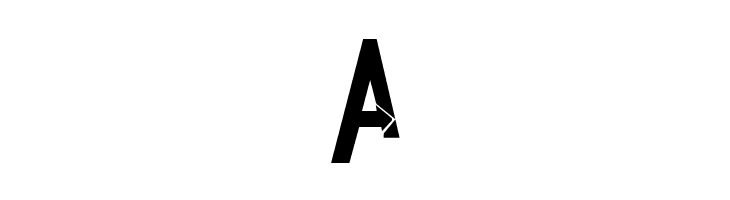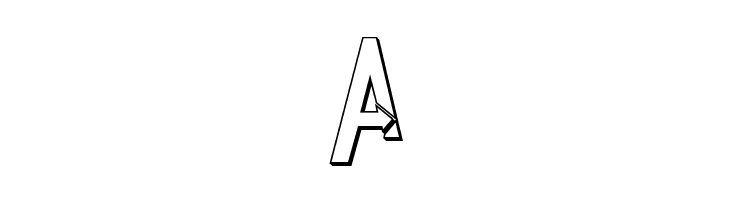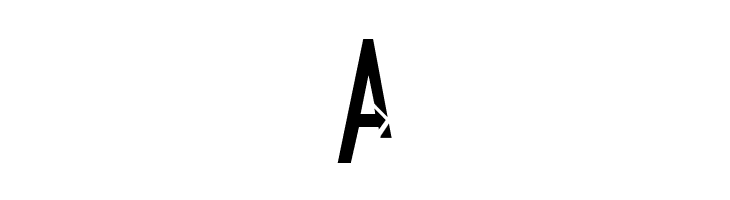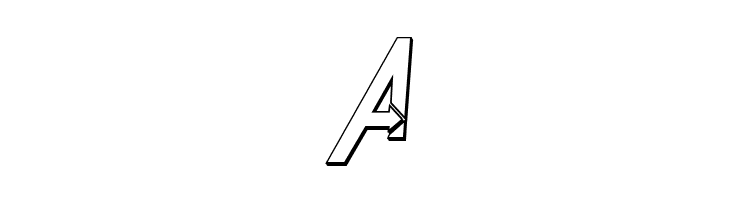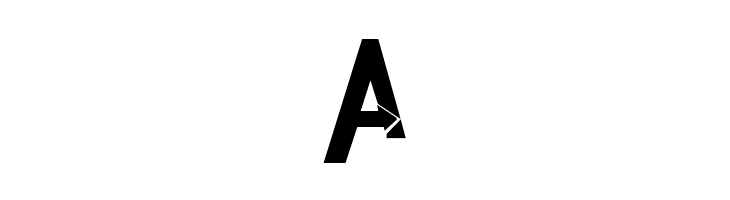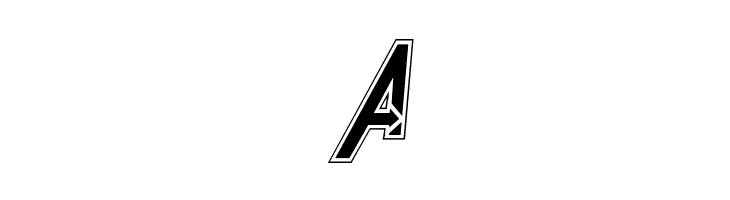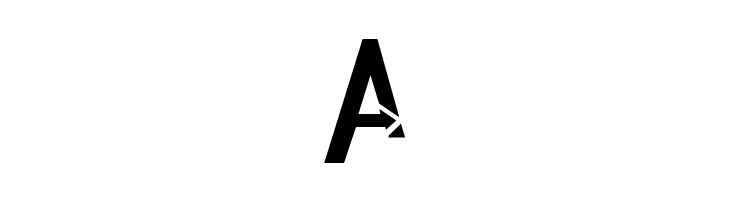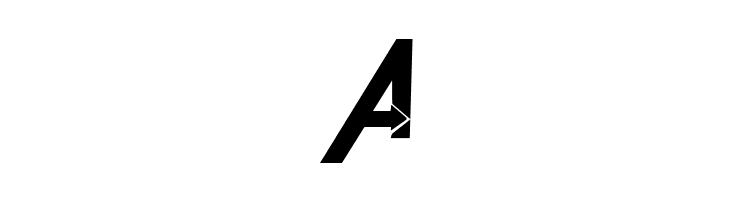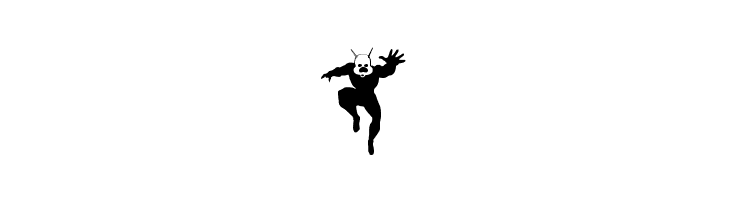
A mystical, rune-like font with bold, intricate characters and an italic slant.
A bold, geometric font with strong, angular shapes.
A bold, 3D geometric font with a strong, industrial style.
A bold, 3D italic font with a futuristic and dynamic style.
A bold, geometric, and condensed font ideal for impactful headlines.
A bold, condensed, and italicized font with a dynamic and modern style.
A bold, geometric font with angular lines and a strong, modern presence.
A bold, expanded, and italicized font with a geometric and futuristic style.
A bold, modern font with a unique horizontal line gradient effect.
A bold, italicized font with a gradient effect and dynamic, energetic style.
A bold, geometric font with a halftone effect, perfect for modern designs.
A bold, italicized font with a halftone effect, ideal for modern, dynamic designs.
A bold, italic, geometric font with a dynamic and energetic style.
A bold, angular font with a leftward slant, ideal for impactful designs.
A bold, geometric outline font with strong, angular lines and a modern aesthetic.
A bold, outlined, italic font with angular, geometric characters.
Bold, angular, semi-italic font with a dynamic and geometric style.
Bold, angular, and geometric font with a strong presence.
Bold, geometric font with a shadow effect for a 3D appearance.
Bold, italic font with a shadow effect and geometric style.
A bold, italic, geometric font with a dynamic and futuristic style.
A bold, geometric font with strong, angular lines and a blocky appearance.
A bold, italicized font with angular, dynamic characters.
Bold, 3D italic font with outlined characters and dynamic style.
A bold, 3D font with a strong, dynamic presence and a superhero-inspired style.
A bold, italicized font with strong geometric shapes and outlined characters.
A bold, three-dimensional font with a dynamic and powerful style.
A bold, angular font with a superhero-inspired, decorative style.
A bold, expanded font with geometric shapes and sharp angles, perfect for impactful headlines.
A bold, expanded, and italicized font with a dynamic and futuristic style.
A bold, italicized font with a dynamic and heroic style.
A bold, condensed font with sharp, angular edges, ideal for dynamic and powerful designs.
A bold, condensed italic font with a dynamic and modern style.
Superhero silhouette dingbats with dynamic poses.
A bold, angular font with a modern and dynamic design.